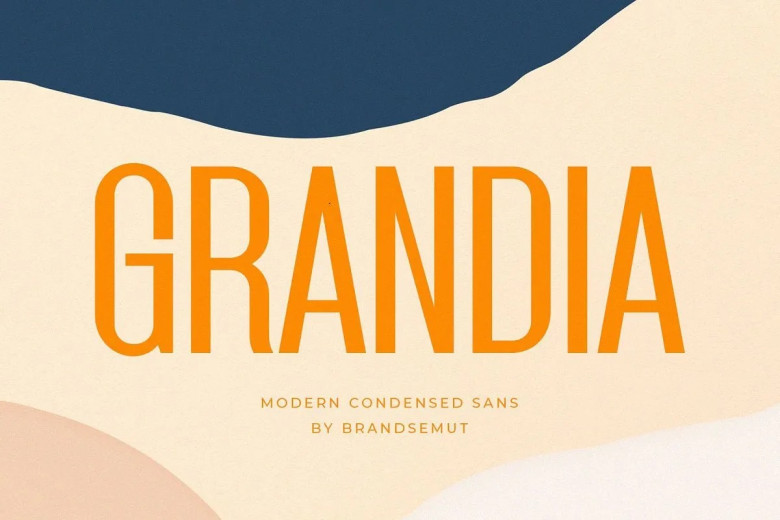
Grandia Font
Grandia is an elegant sans-serif font ideal for use on magazines, product packaging and invitations. With its clean lines and gentle curves, Grandia will add an air of sophistication to any project.
Grandia Sans Font